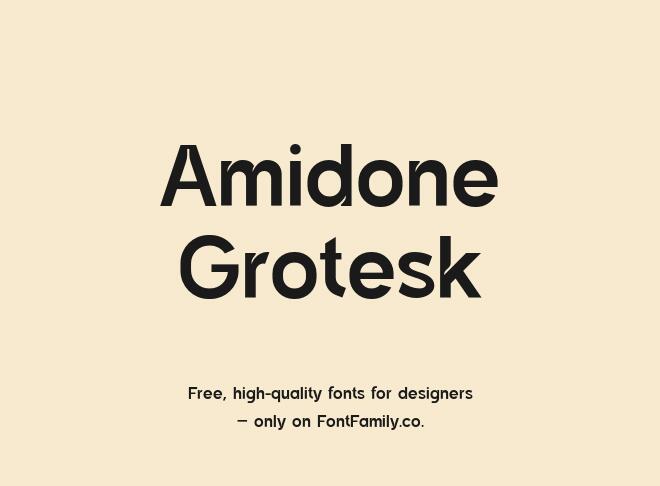
Amidone Grotesk Font
Amidone Grotesk Font is a modern, geometric, and minimalistic typeface designed by Amidone Type Foundry. It combines the simplicity of sans serif with the precision of geometric design. The clean lines and balanced proportions make it a versatile option for a variety of design projects, from website headers to branding and print design. Its minimalistic style makes it a perfect match for modern design aesthetics, while its geometric nature allows it to fit into more structured designs. Compared to other fonts, Amidone Grotesk stands out for its unique blend of modern and geometric elements, making it a great choice for designers seeking to bring a fresh, contemporary feel to their work. Its open font license allows for broad use, making it a valuable addition to any designer's toolkit.